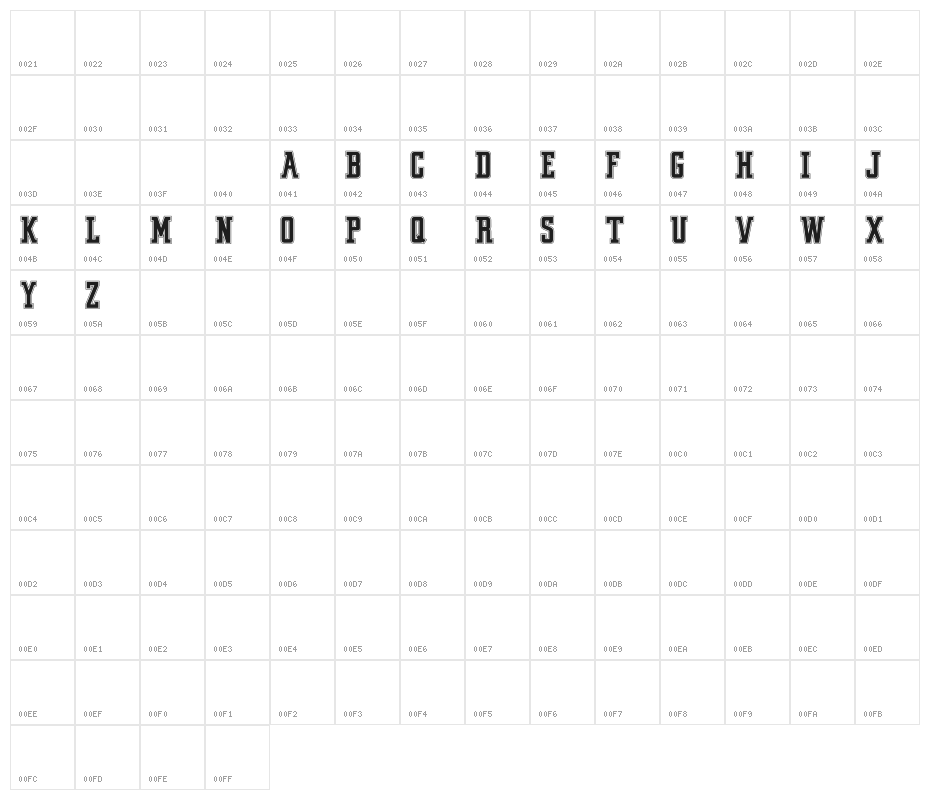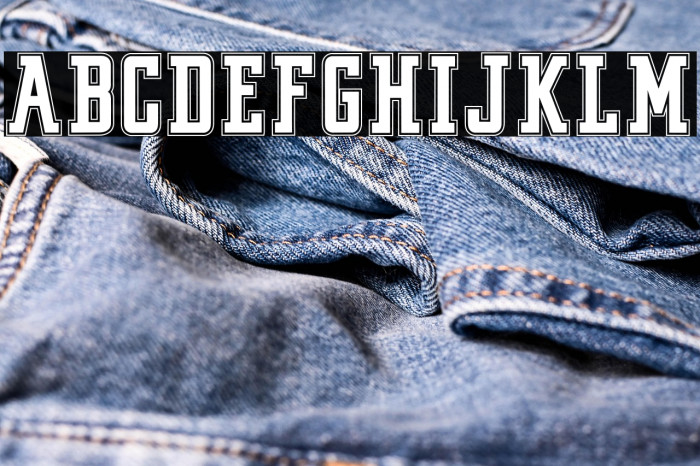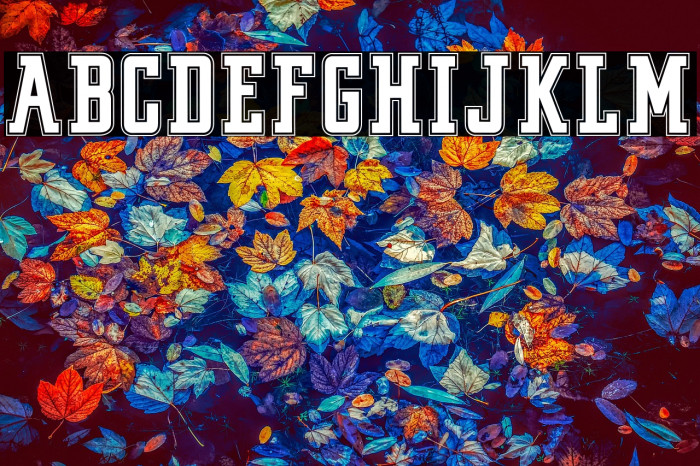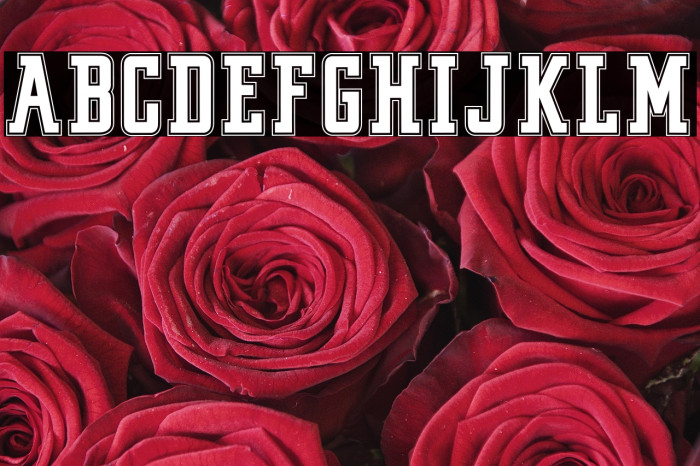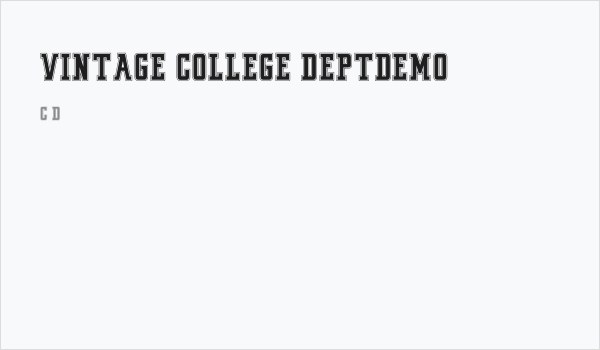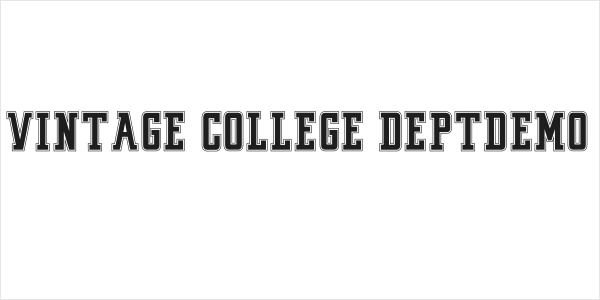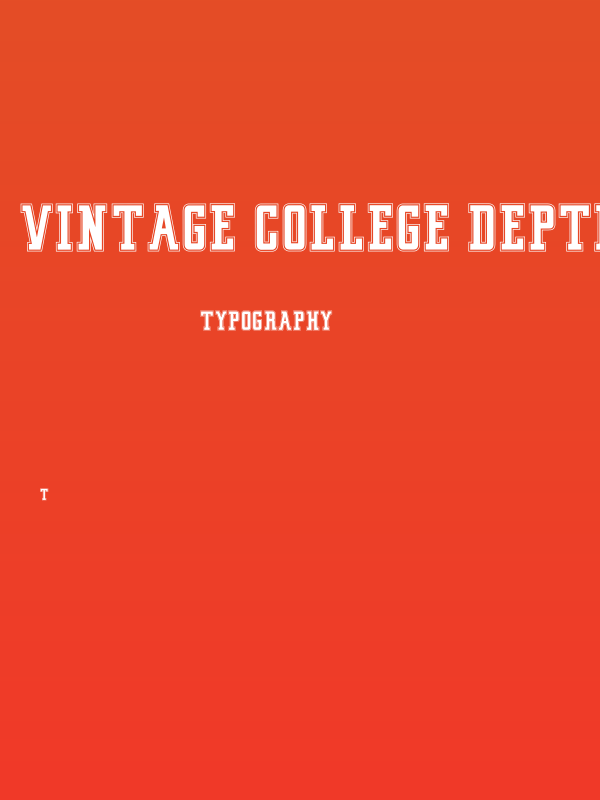
VINTAGE COLLEGE DEPT_DEMO_outli Font
VINTAGE COLLEGE DEPT_DEMO_outli Description
This font features a bold, collegiate style with strong, blocky letterforms that are outlined for added emphasis. The uppercase letters are designed with a classic varsity aesthetic, reminiscent of traditional sports jerseys and university branding. Each character is well-defined with sharp angles and a robust presence, making it ideal for creating a sense of authority and tradition. The font's outline adds a layer of depth, enhancing its visual impact and making it stand out in various design contexts.